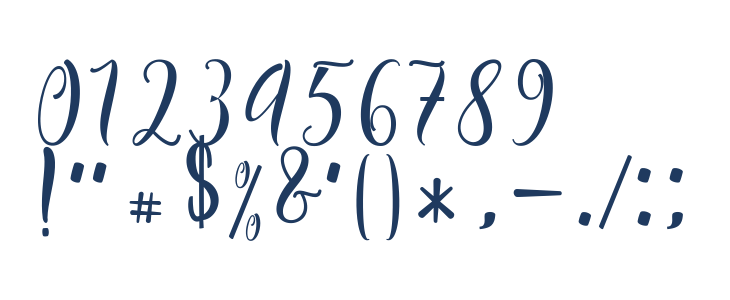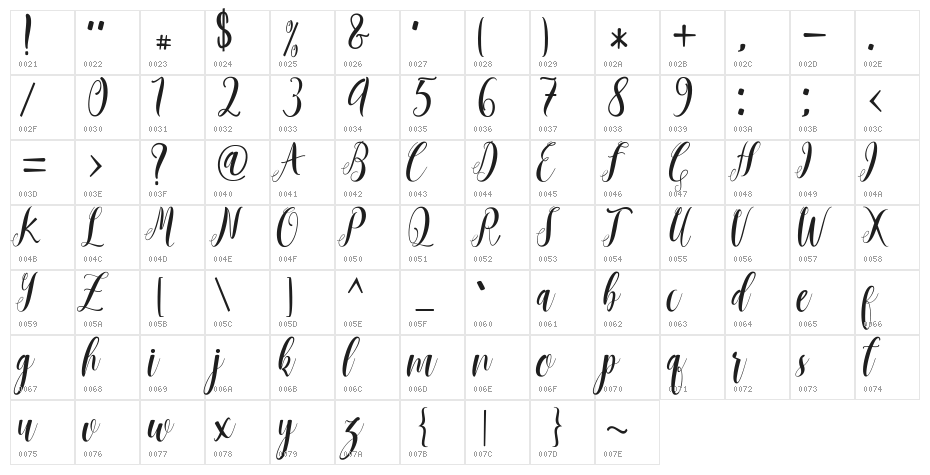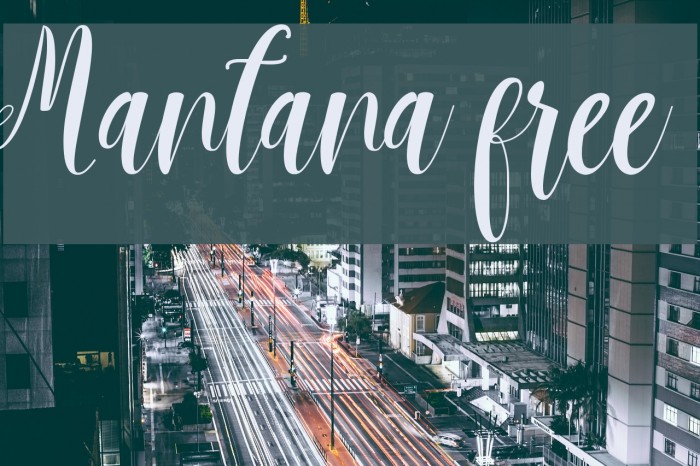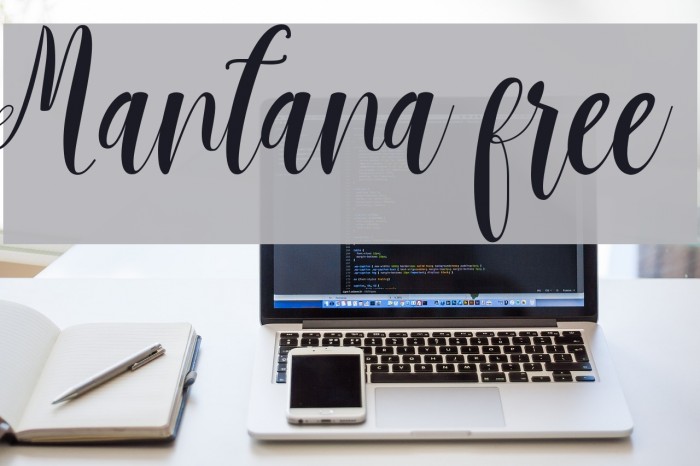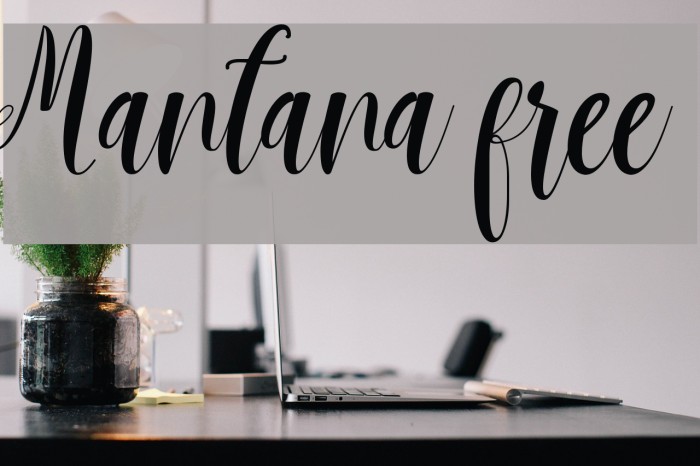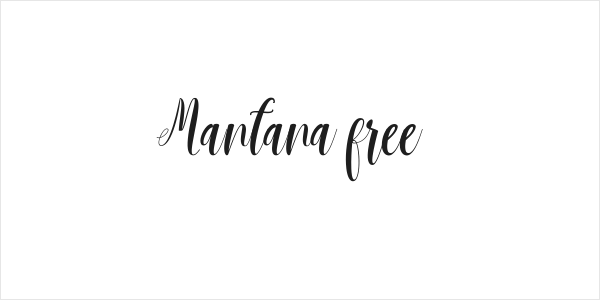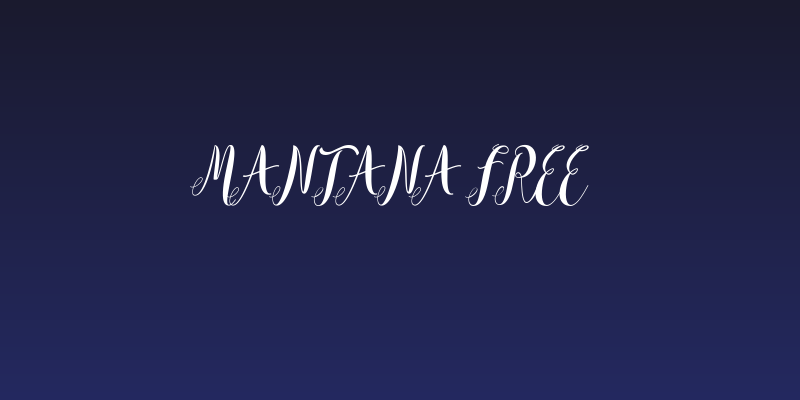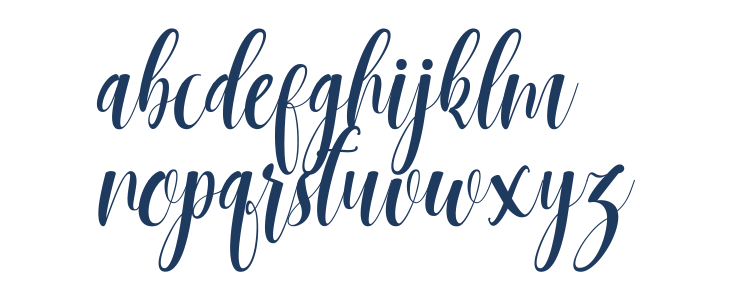
Mantana free Font
Mantana free Description
This font is a beautifully crafted script typeface that exudes elegance and sophistication. The letters are intricately designed with flowing curves and loops, giving it a handwritten feel. The uppercase letters are tall and graceful, while the lowercase letters maintain a consistent flow, enhancing readability. The numbers and special characters are equally well-designed, complementing the overall style. This font is perfect for projects that require a touch of class and personality, such as wedding invitations, branding, and high-end product packaging.
| Proposed Projects | Ideal for wedding invitations, branding, and luxury product packaging. |